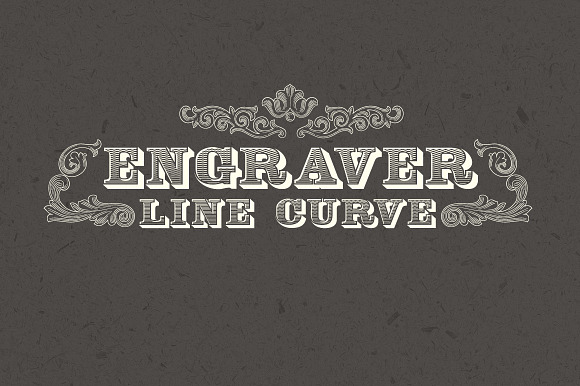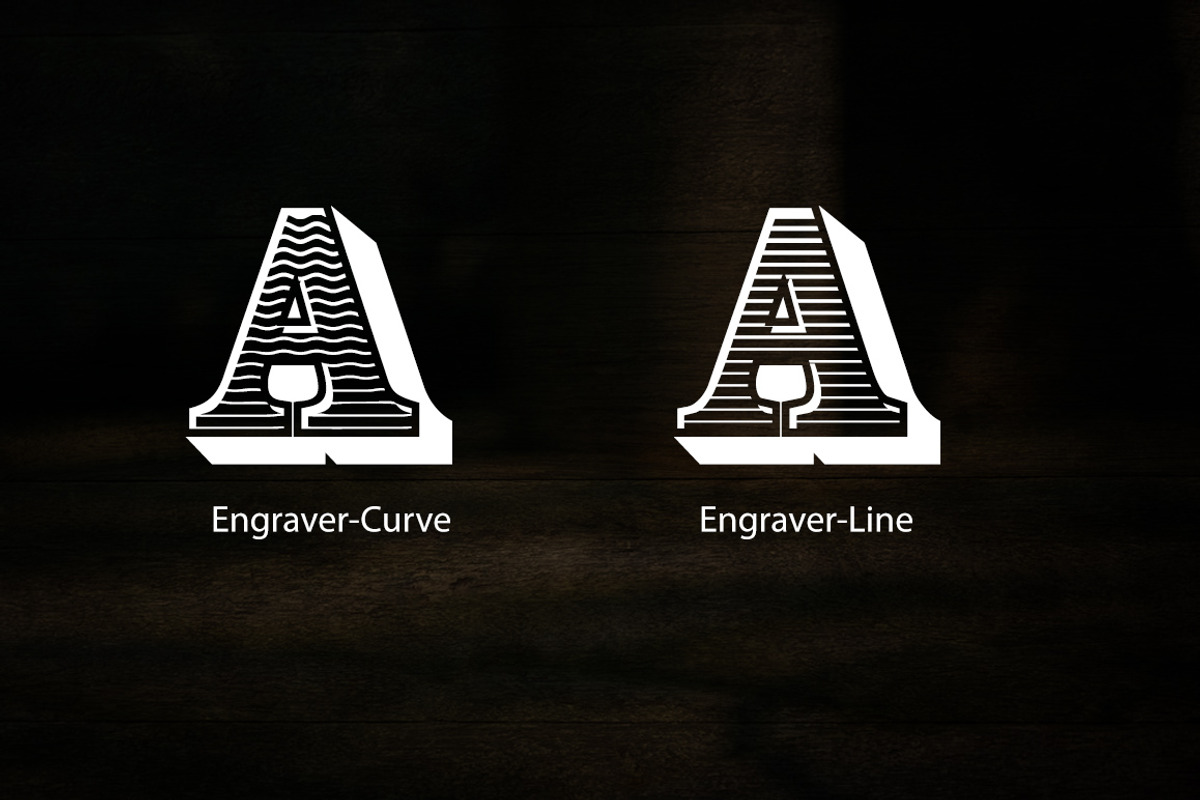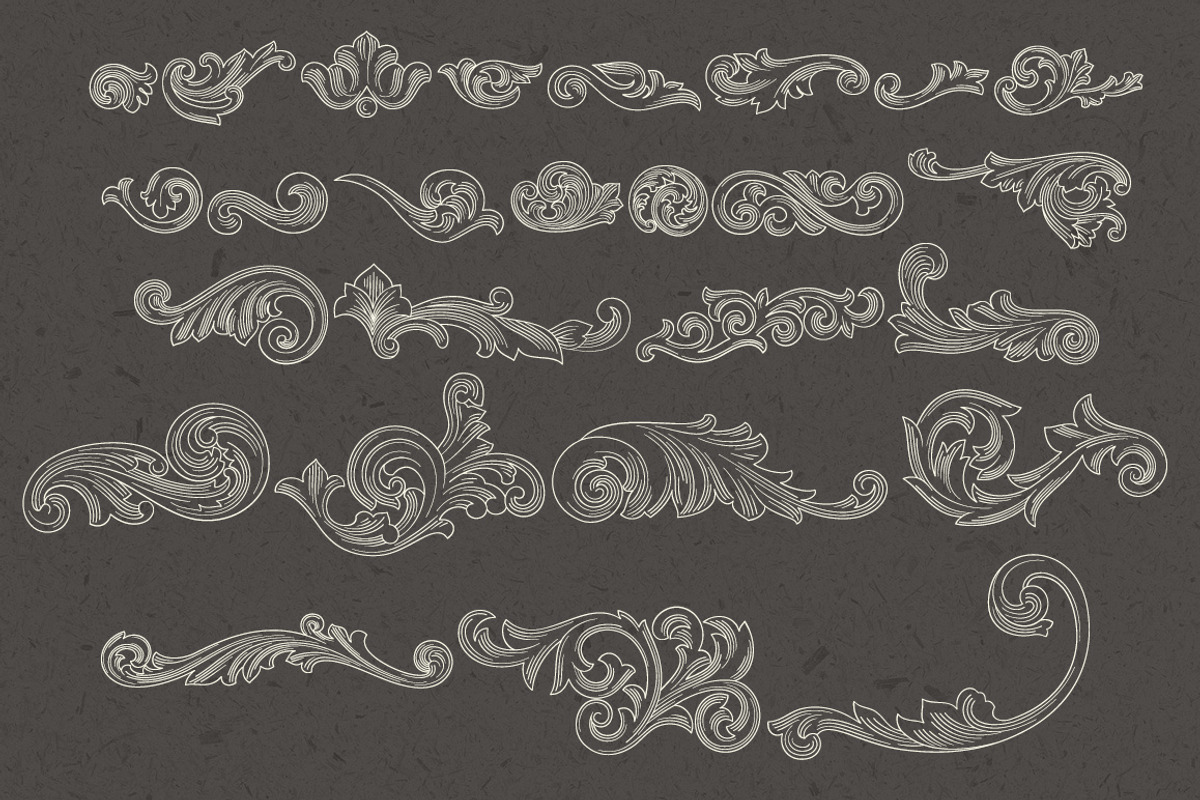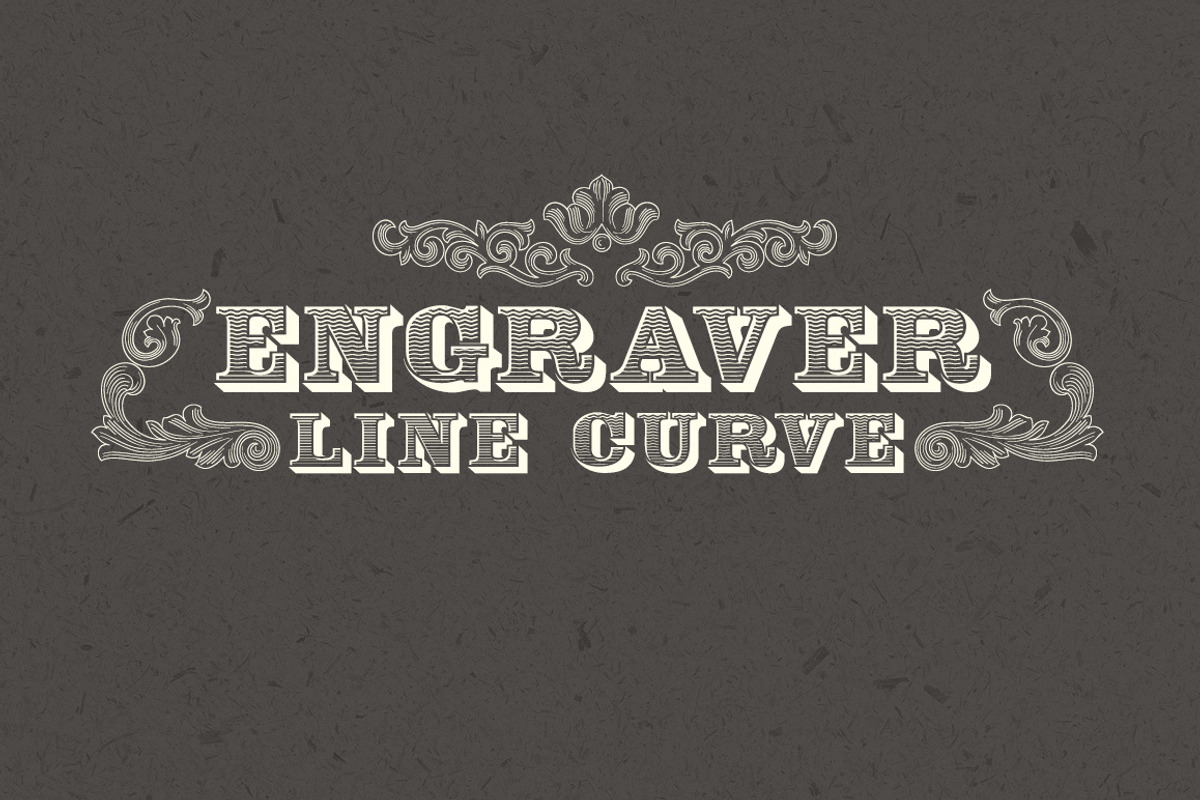
Engraver Font
Engraver is a set of carved texture fonts, which is suitable for certificate and securities title display. It includes three fonts: curved water ripple, straight line and extended decoration.
- It includes three fonts: curved water ripple, straight line and extended decoration.